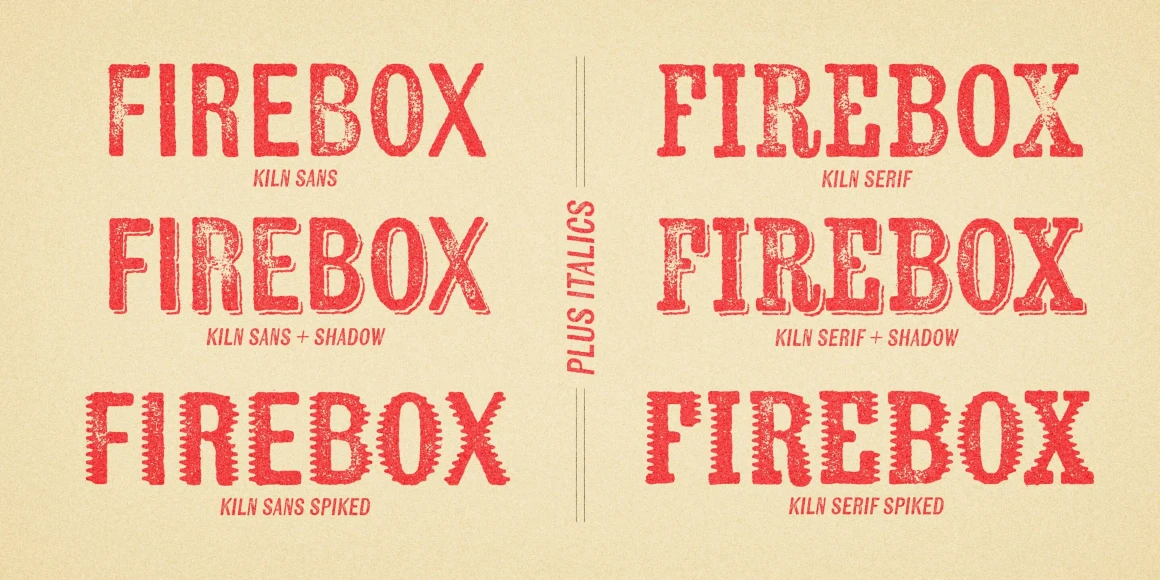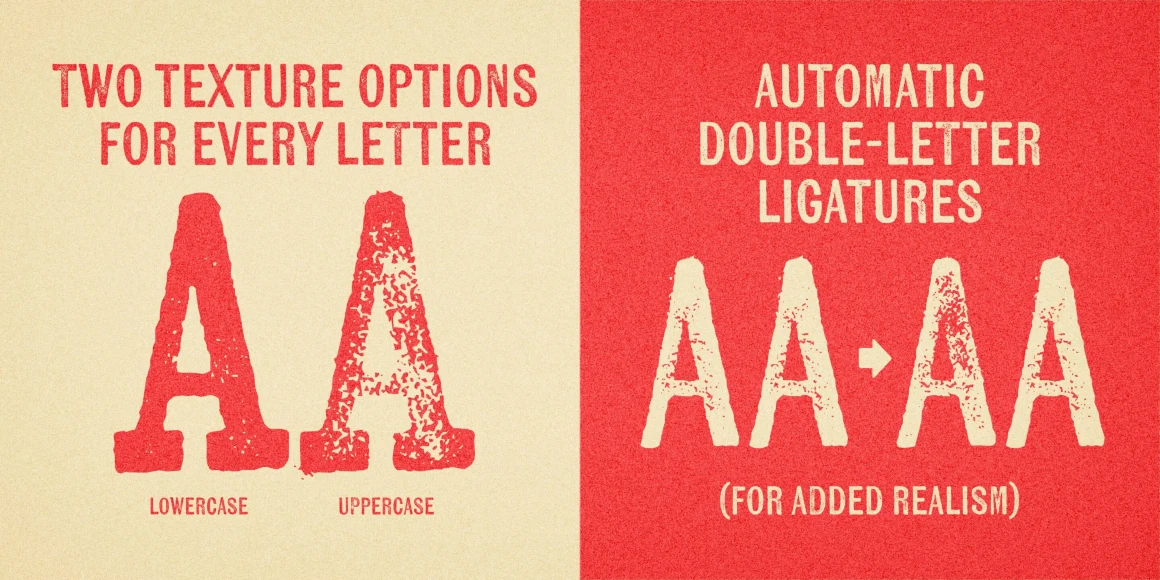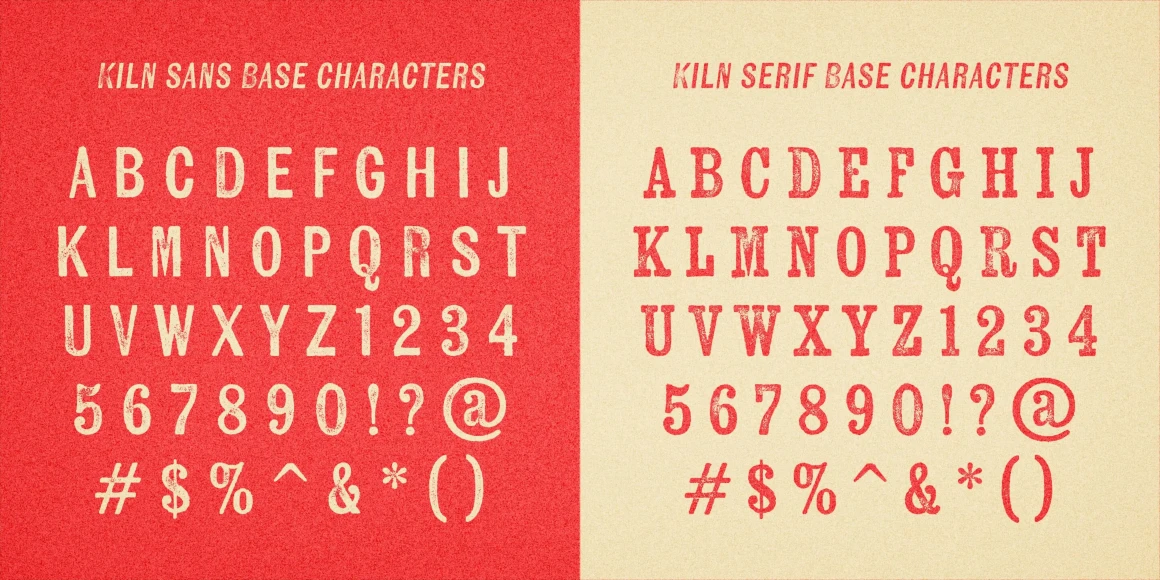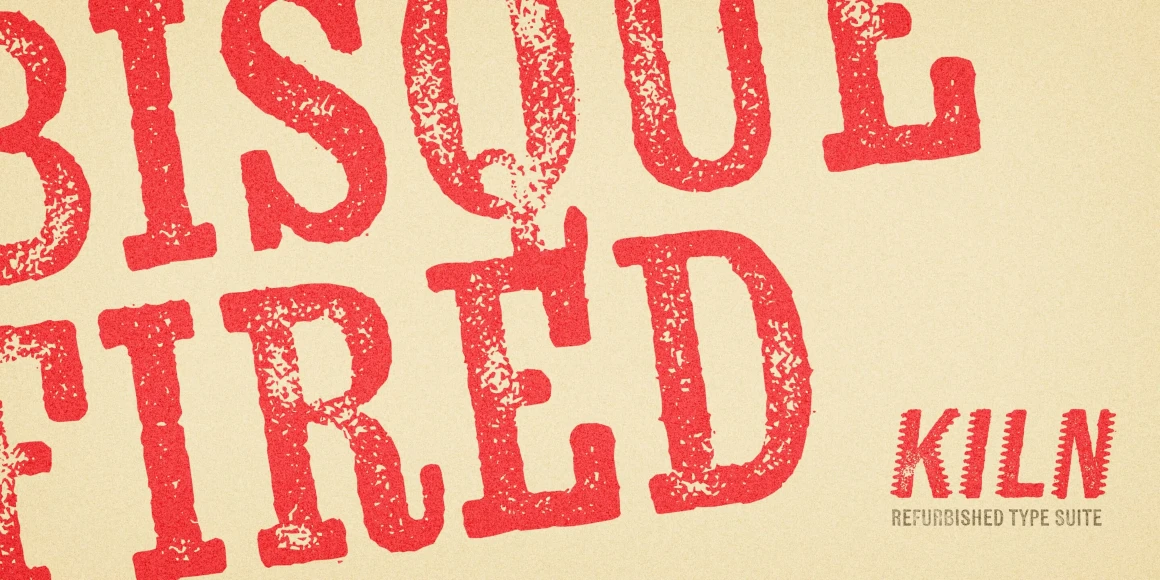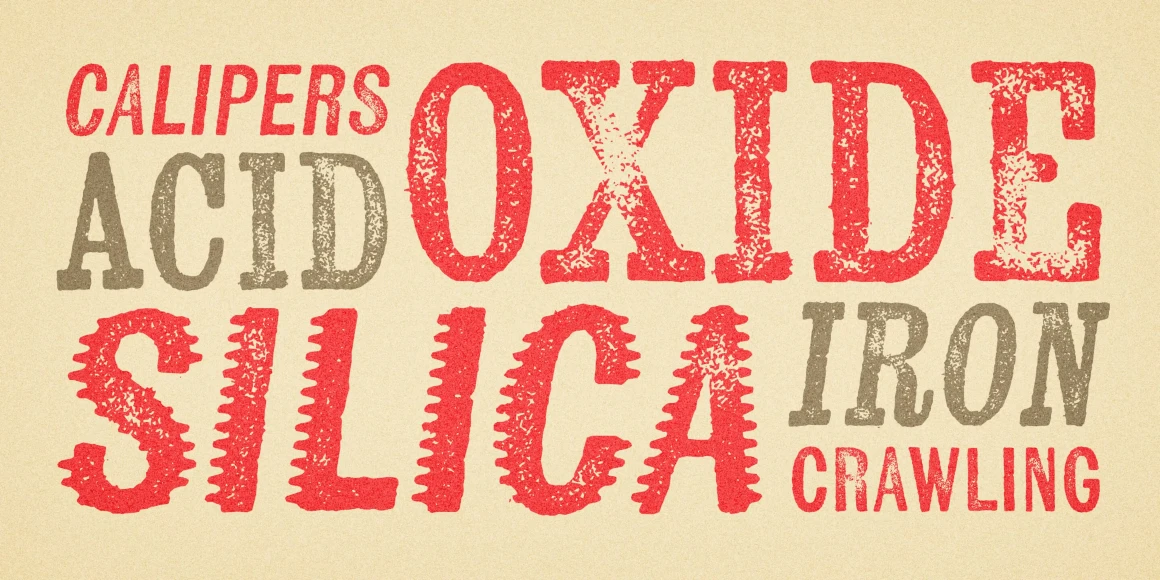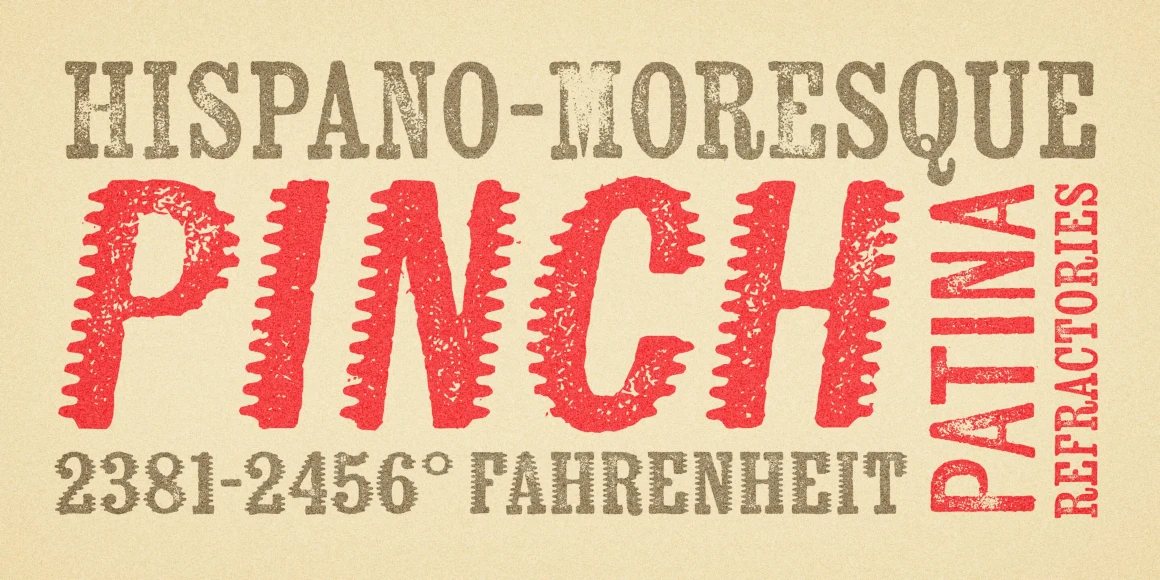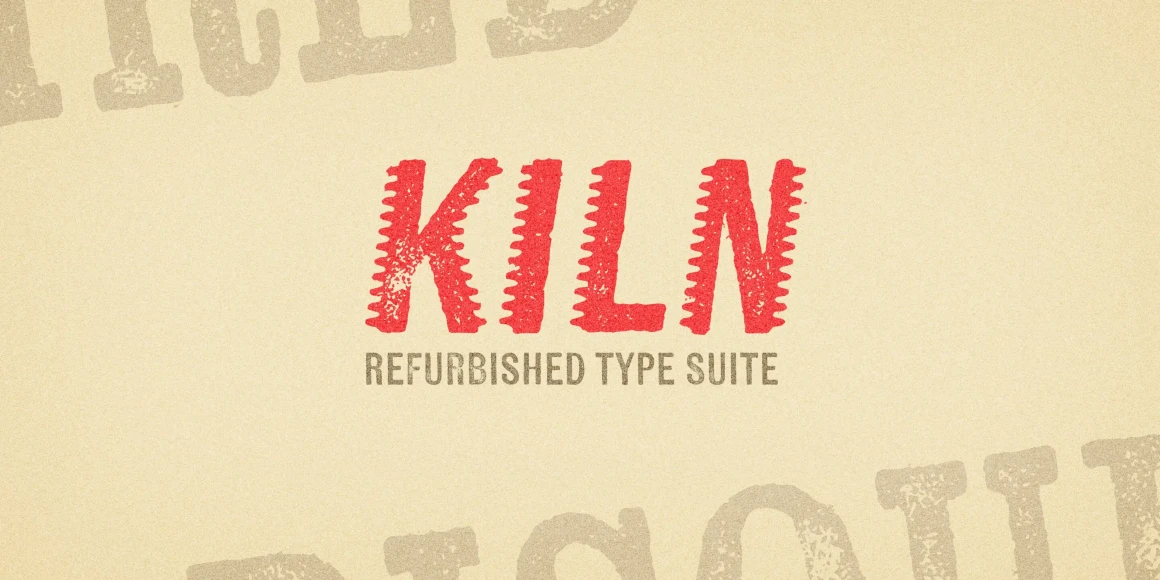
Kiln Sans
By Ryan Martinson
Kiln Sans Regular
Kiln Sans Regular Italic
Kiln Sans Spiked
Kiln Sans Spiked Italic
Kiln Sans Shadow
Kiln Sans Shadow Italic
Kiln from Yellow Design Studio is a timeworn, hand-crafted type family with serif, sans serif, and unique spiked versions. It’s a historic revival with modern twists. All letters have 2 distress options for added realism and customization. Other features include shadow layers, automatic double-letter ligatures (to avoid adjacent letters with the same texture), italics, and multiple language support. Kiln has a high level of detail which looks authentic even at large sizes.